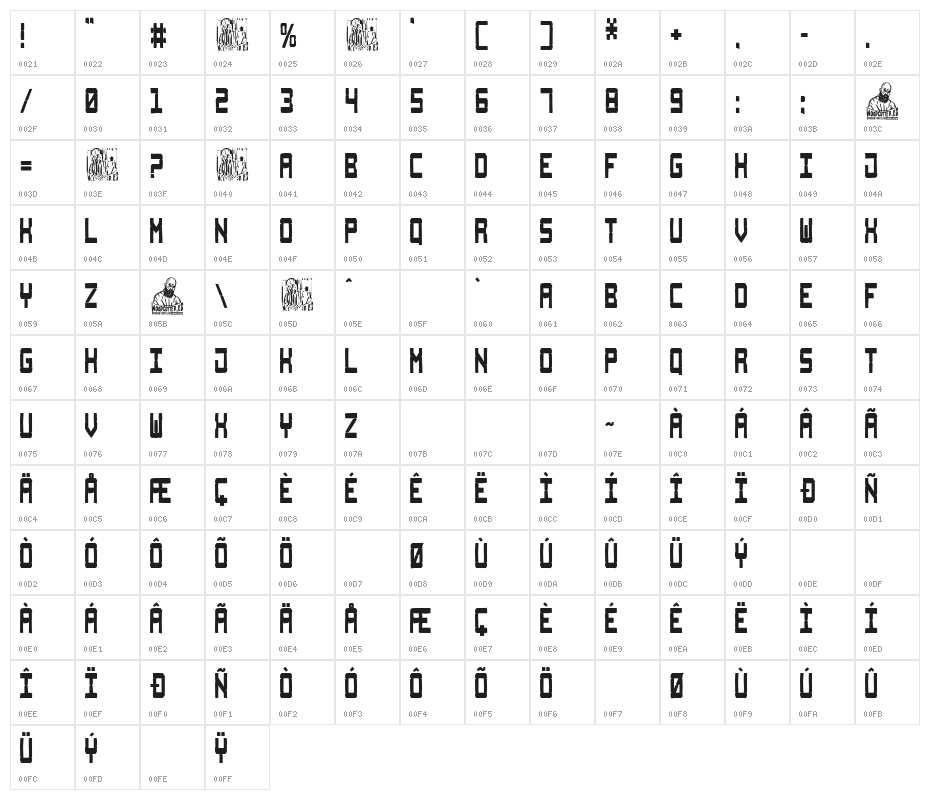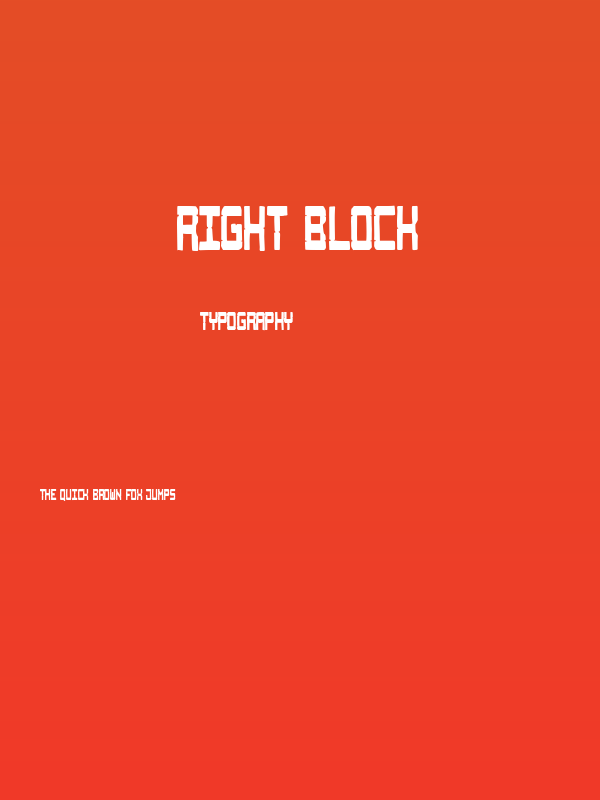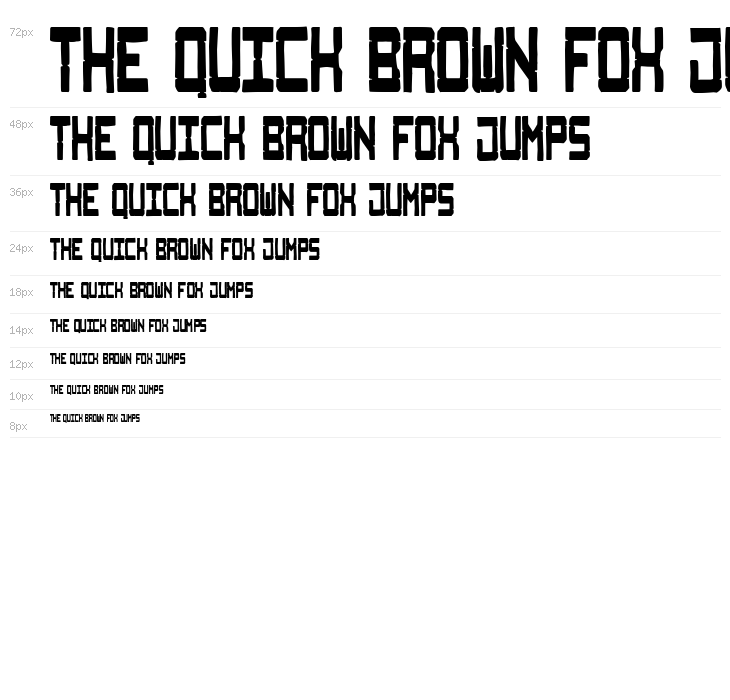
Right Block Font
Right Block Description
A bold, blocky, and geometric display font with a distressed, stencil-like appearance. The characters have uneven edges and a rugged texture, giving a hand-crafted, industrial feel. The letterforms are uppercase, monospaced, and highly legible, with consistent height and width. Numbers and special characters follow the same style, maintaining the rough, cut-out look.
| Overall Style | Decorative, Industrial, Rugged |
| Proposed Projects | Posters, signage, album covers, branding for industrial or urban themes, event flyers, video game titles. |